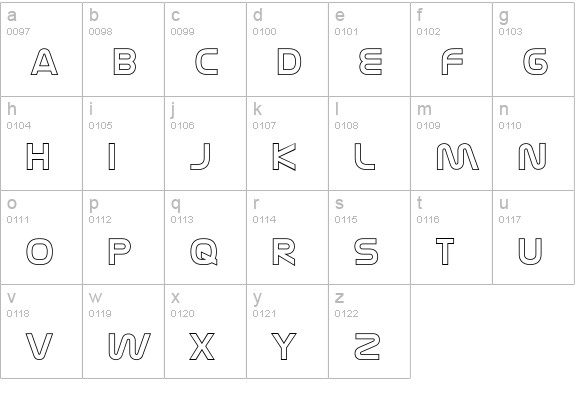
Nasalization Outline Font Details
Nasalization Outline is a sleek and modern font that exudes a sense of sophistication and creativity. Its clean lines and geometric shapes give it a futuristic and edgy appearance, making it perfect for a wide range of design projects. Whether you're creating a logo, poster, or website, Nasalization Outline will make your text stand out with its unique style. The best part? Nasalization Outline is available for free download at FontsMarket.com. This means you can easily access this stunning font and use it in your projects without any cost. Don't miss out on the opportunity to enhance your designs with the bold and striking Nasalization Outline font - download it today and let your creativity soar.